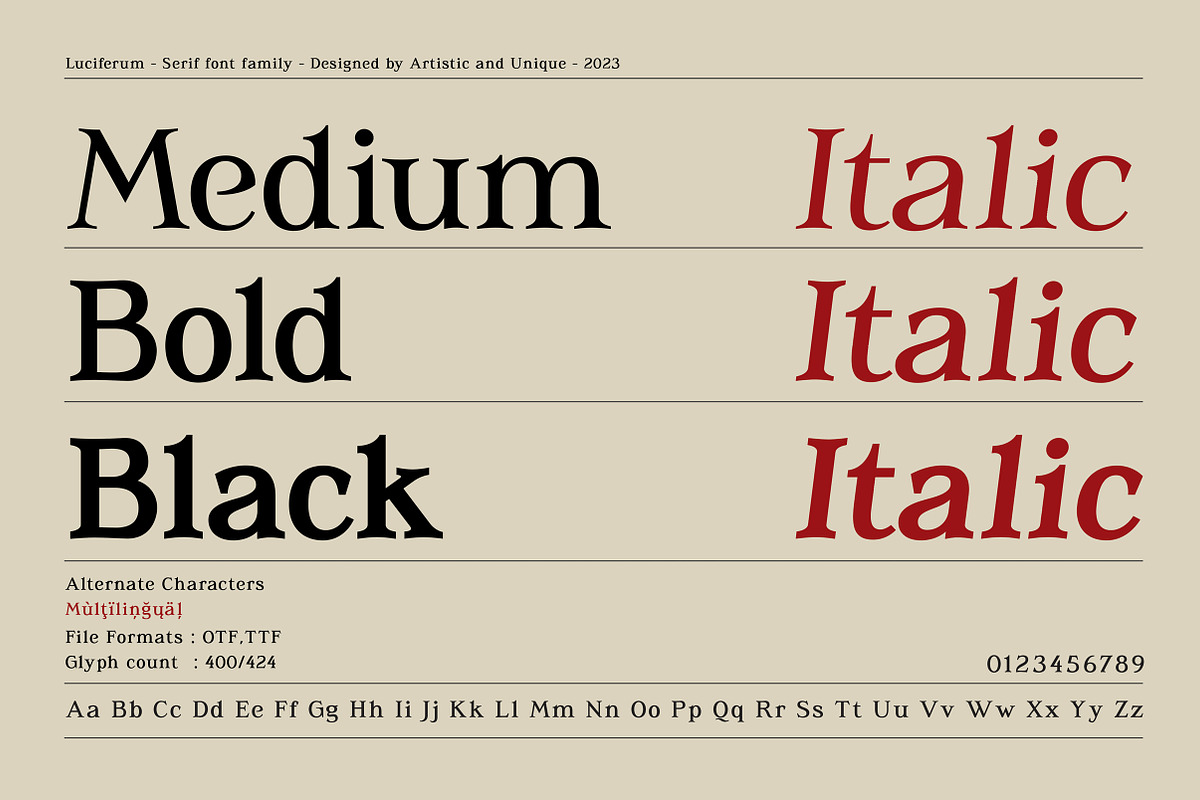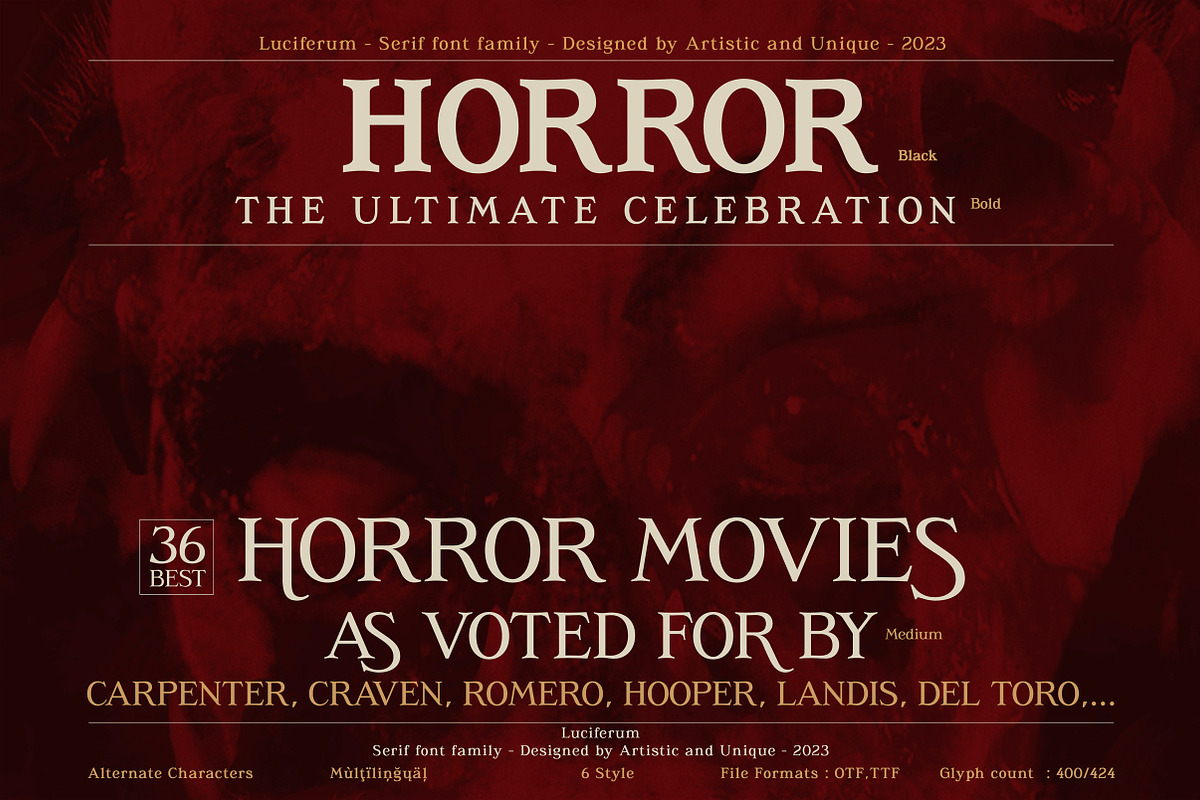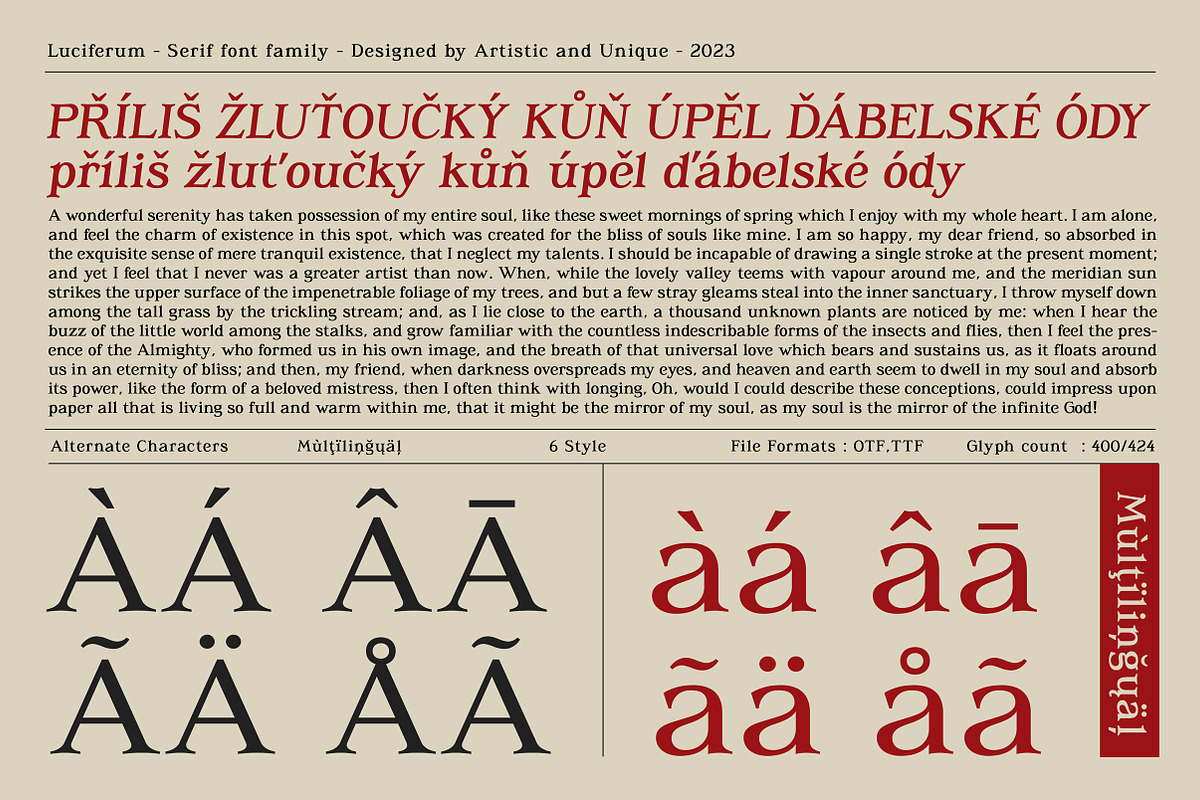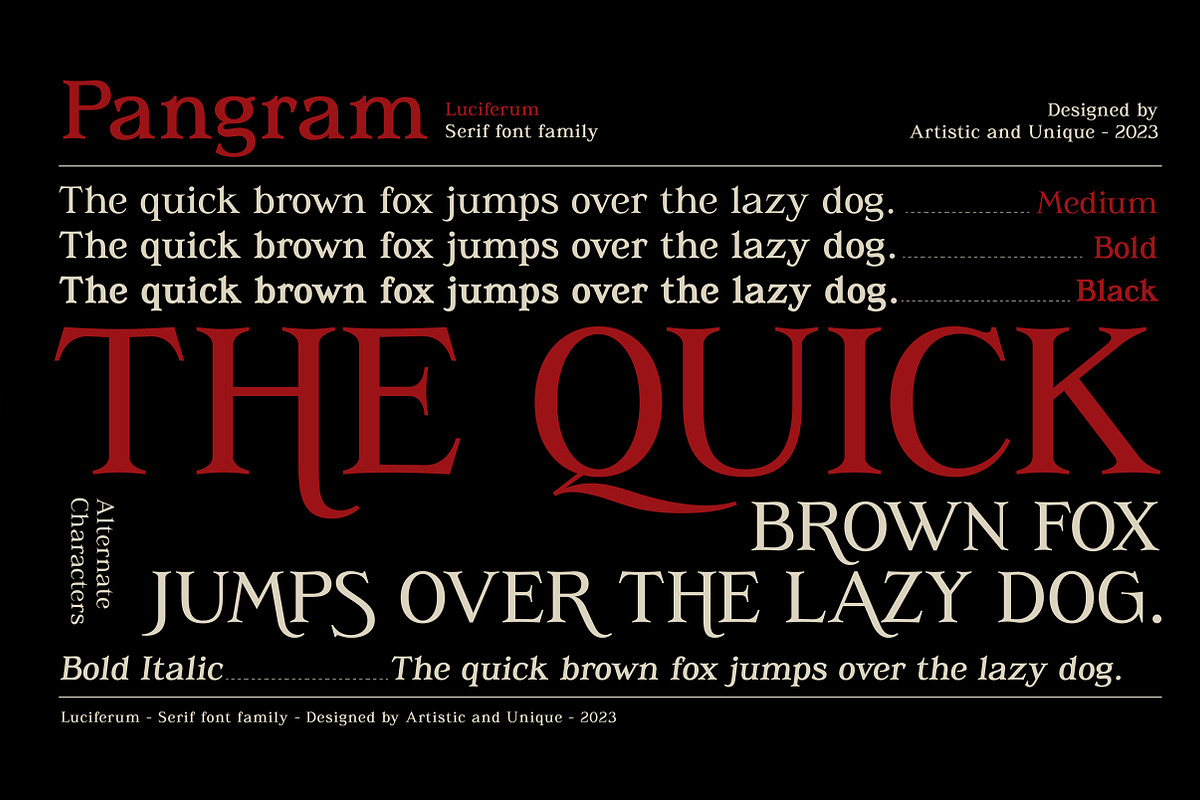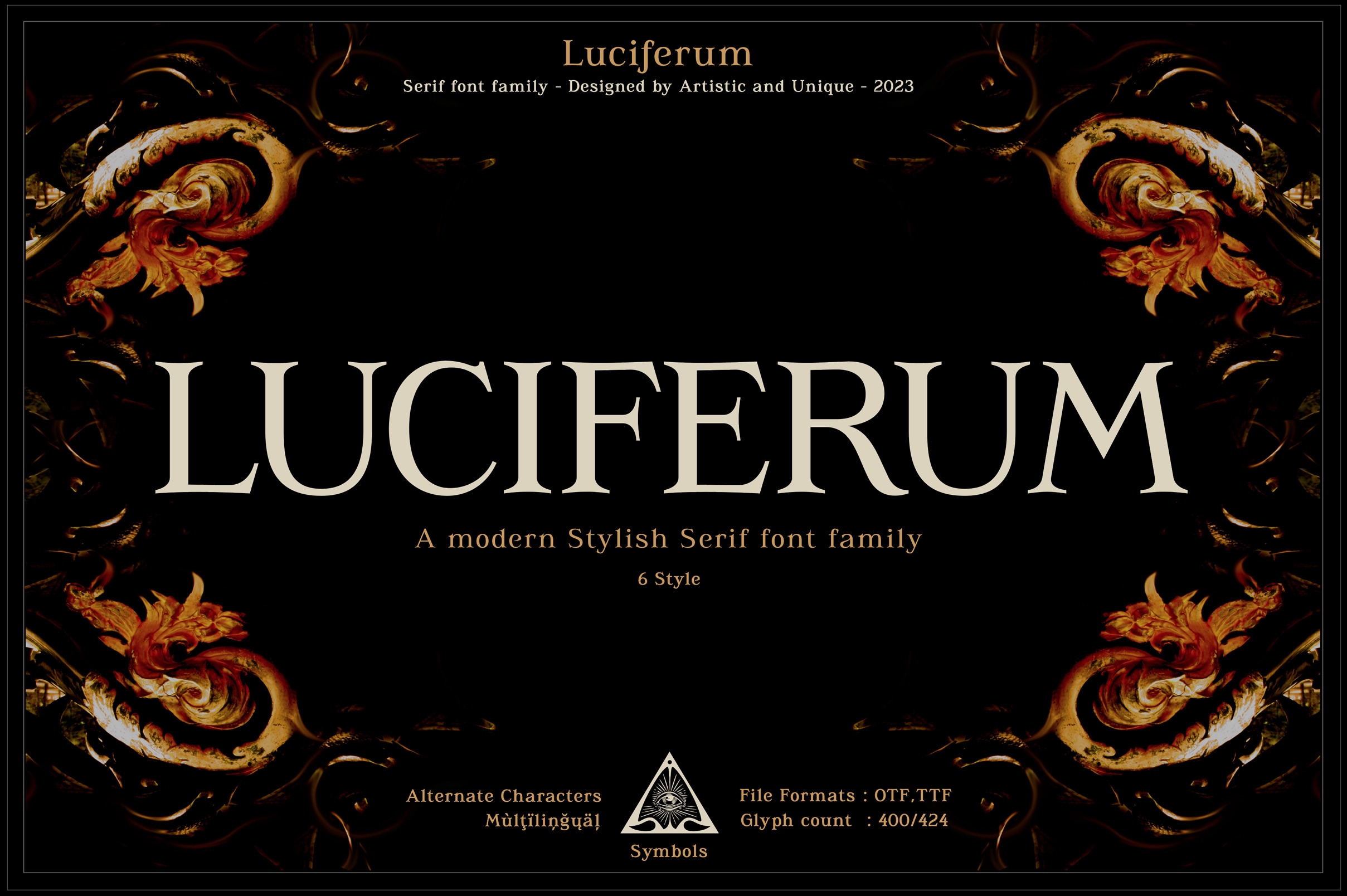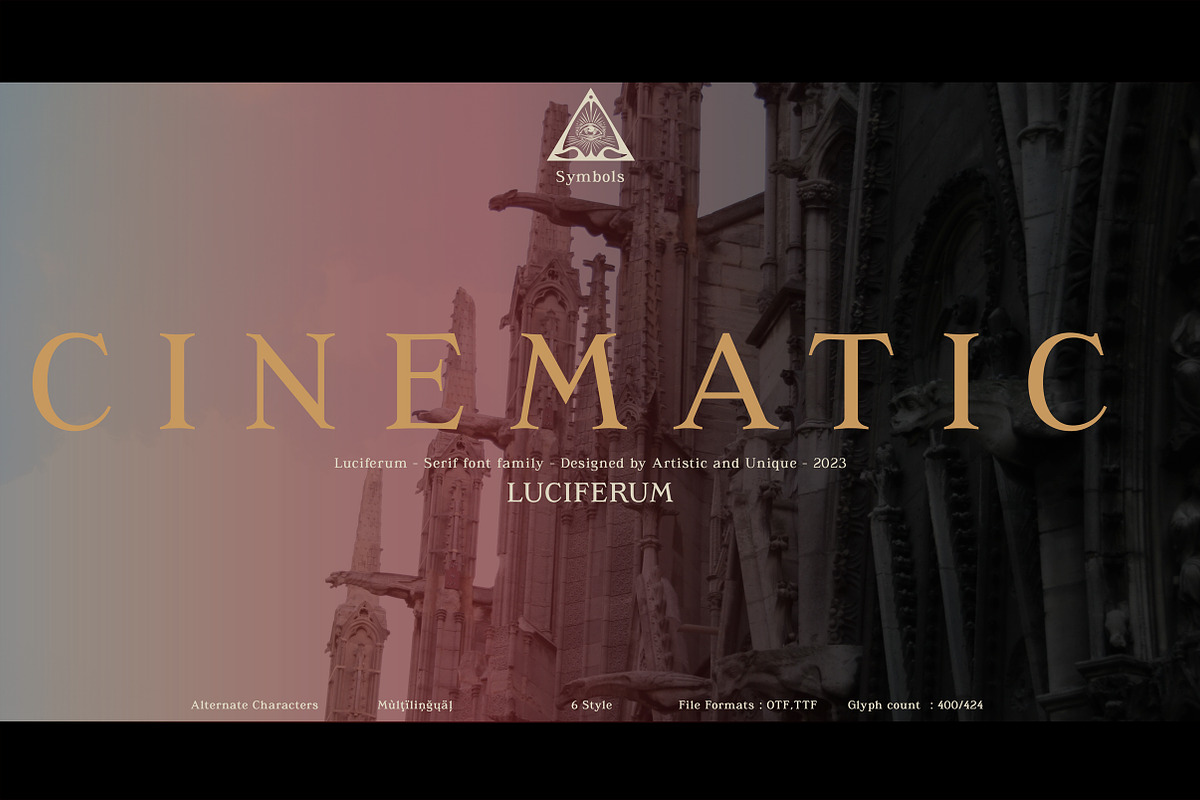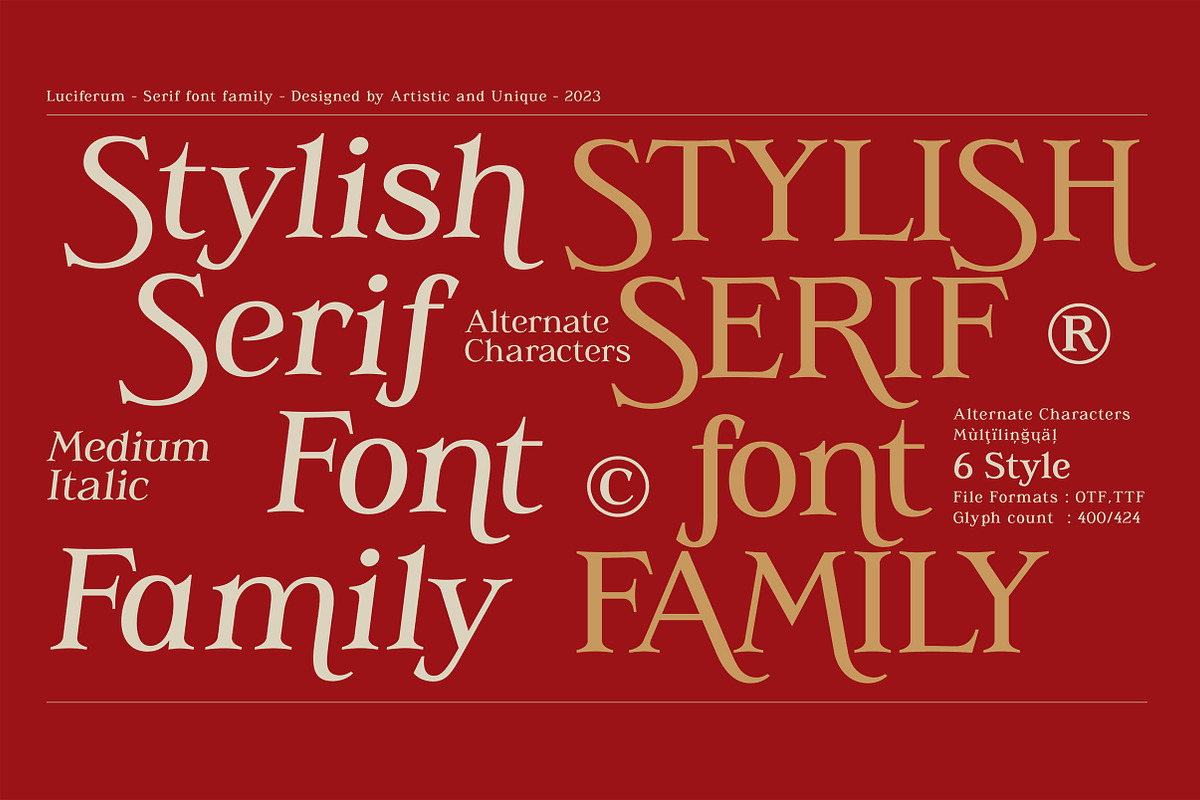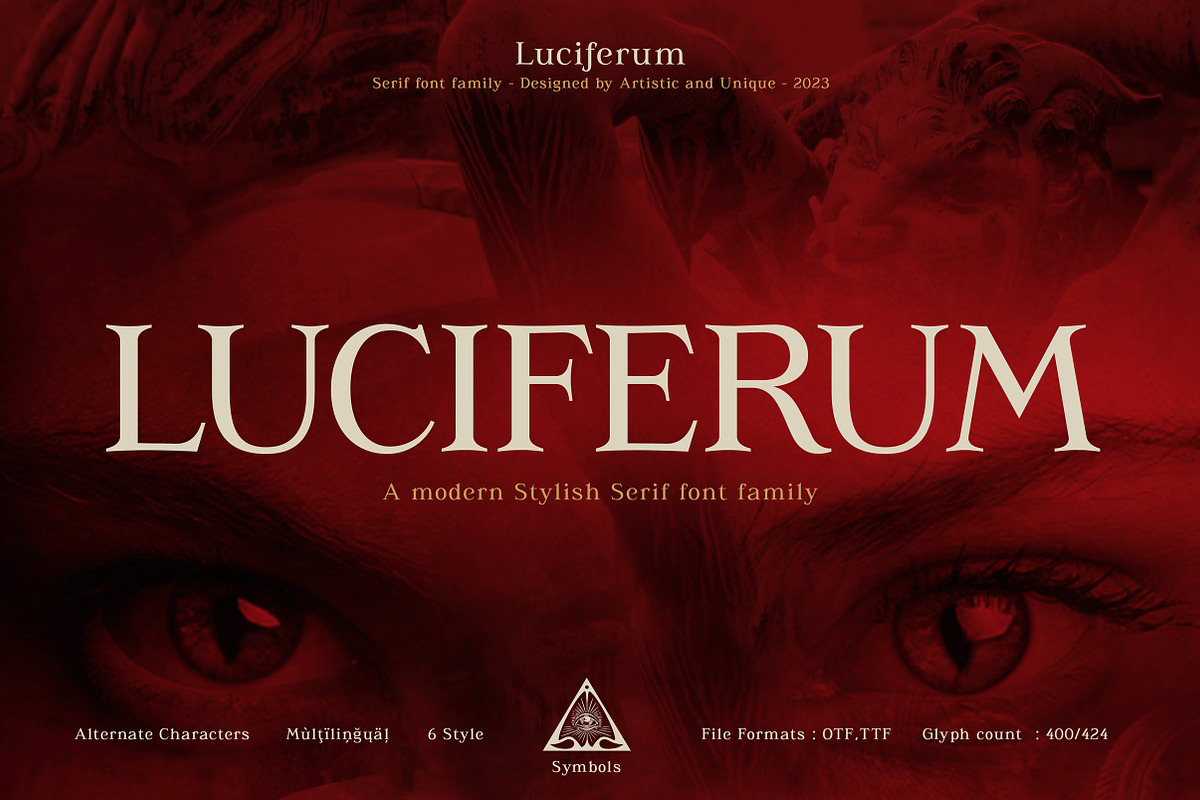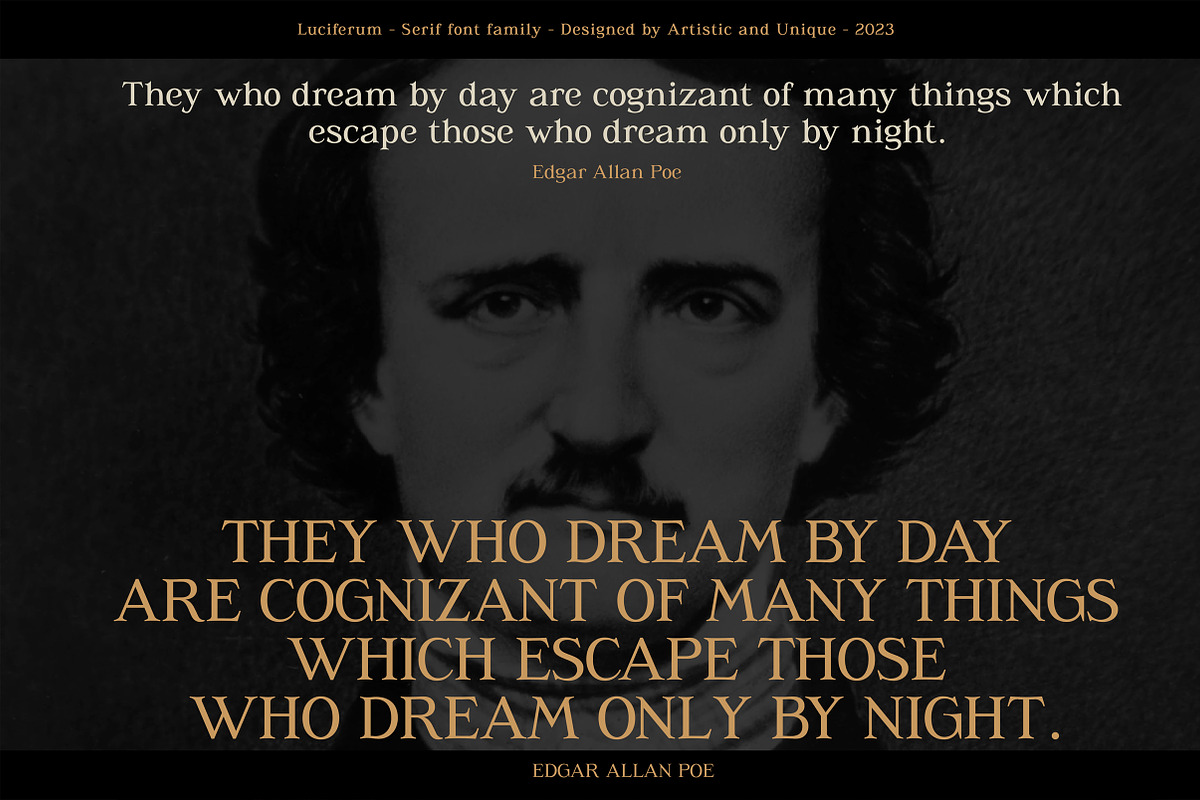
Luciferum - Serif font family
Luciferum is a stylish serif font family with different alternative character designs. It has a structure that you may encounter especially in horror novels, movies, posters and similar content. This font provides flexibility in all your projects with the alternatives it offers you with its multiple language options, 6 styles and rich glyph options. You will have the opportunity to enrich the content of your projects with alternative characters.
Depending on the purpose of use in typographic compositions that you will create with the aesthetic structure of alternative characters; You can enrich your titles in books or magazines, and your logos in branding.
Especially for movie titles, posters, album covers, editorials, magazines, books, branding, packaging, logo design, web design, headlines, etc.
If you're looking for a font with stylistic alternatives, Luciferum serif font might meet your needs.
With this font you can create your unique designs.